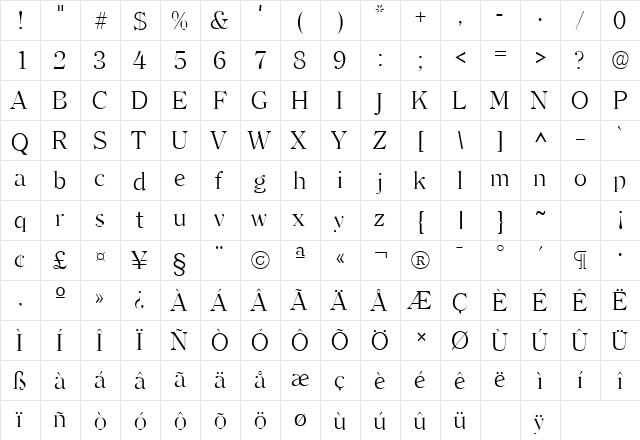
Clarity Serif Light SF Regular
Design Context for Clarity Serif Light SF Typeface
Clarity Serif Light SF carries the refined structure of traditional serif typography, with bracketed terminals and considered proportions that communicate credibility and craft. The delicate stroke weight brings airiness and refinement to layouts.
Pro Tip: Set Clarity Serif Light SF at slightly larger body copy sizes than you would a regular-weight serif to compensate for its delicate stroke contrast.